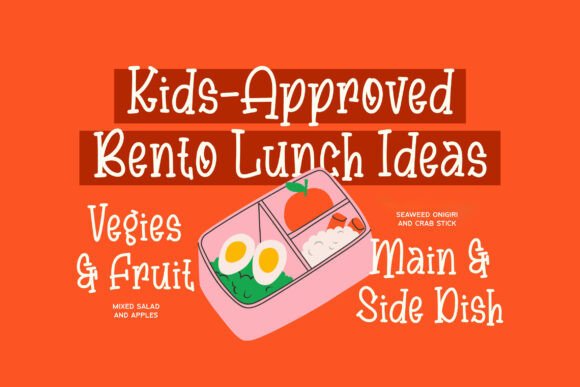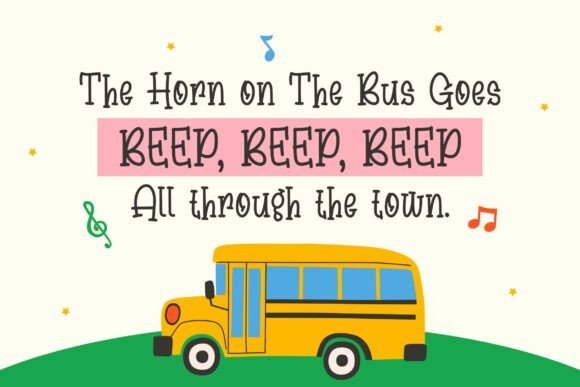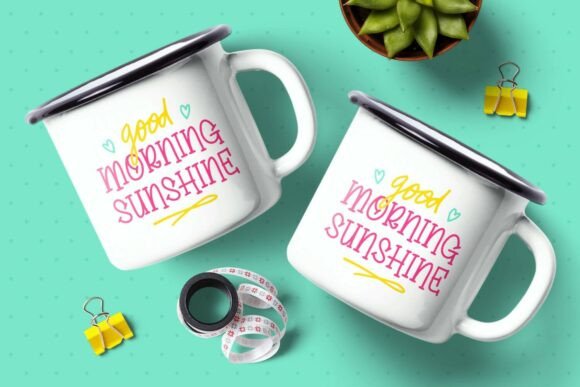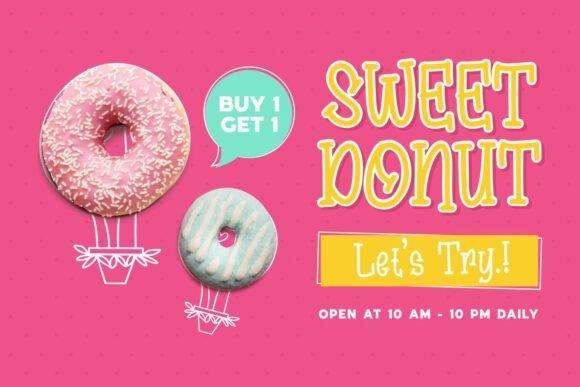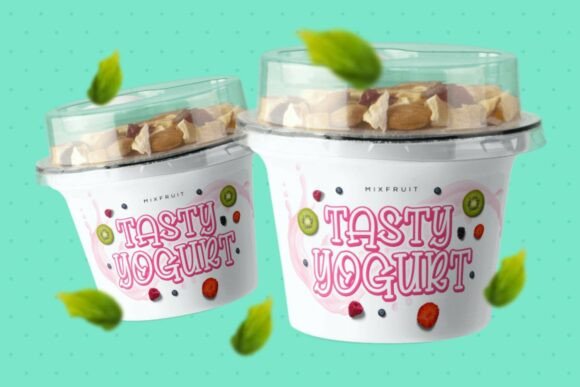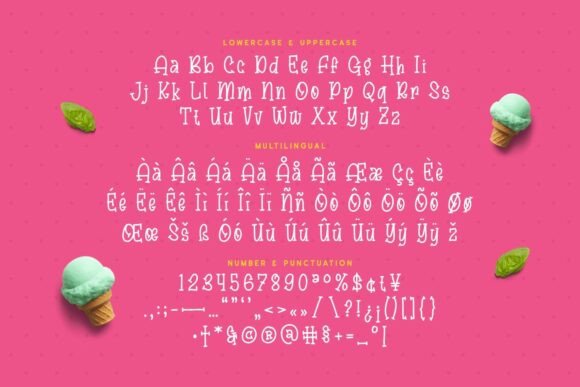
Introduction to Magout Font
As a designer, have you ever stumbled upon that one font that sparks joy and makes your creative project come alive? For me, it was the moment I discovered the enchanting Magout Font. Its whimsical, handwritten style is the perfect blend of playfulness and readability, making it an instant favorite for designing children’s content, educational materials, and even branding projects.
What sets Magout Font apart from other design resources is its high-quality, transparent background, and the fact that it’s available for free download. This means you can add a touch of warmth and friendliness to every word, without worrying about breaking the bank or sacrificing quality. Whether you’re designing for young readers or crafting imaginative visuals, Magout Font is the perfect companion for any creative project.
Key Features of Magout Font
- Unique and stylish design with a transparent background, perfect for adding a touch of elegance to your work
- Magout Font is a versatile design resource that can be used for a variety of creative projects, from logos and branding to digital art and print materials
Honest Review: Magout Font
As a designer, I’m always on the lookout for high-quality design resources to elevate my creative projects. Recently, I stumbled upon the Magout Font, and I’m excited to share my honest review.
What works well: ✨ The Magout Font has a modern and sleek design that’s perfect for contemporary projects. The font is highly versatile and can be used for a wide range of applications, from logos to body text. I also appreciate the transparent background, which makes it easy to customize and integrate into any design.
- High-quality design that’s perfect for contemporary projects
Limitations: ⚠️ While the Magout Font is a great resource, I found that it’s not suitable for projects that require a bold or dramatic font. Additionally, the font may not be as versatile as some other popular fonts on the market.
Overall impression: I’m impressed with the Magout Font and would definitely recommend it to designers looking for a high-quality, free download. With its modern design and transparent background, it’s a great addition to any design resource library.
The Magout Font is a high-quality design resource ideal for various creative projects. This versatile font features a transparent background, making it perfect for overlaying text on images or backgrounds.
The Magout Font is ideal for various creative projects, including:
– Blog posts and articles
– Presentations and slideshows
– Branding and marketing materials